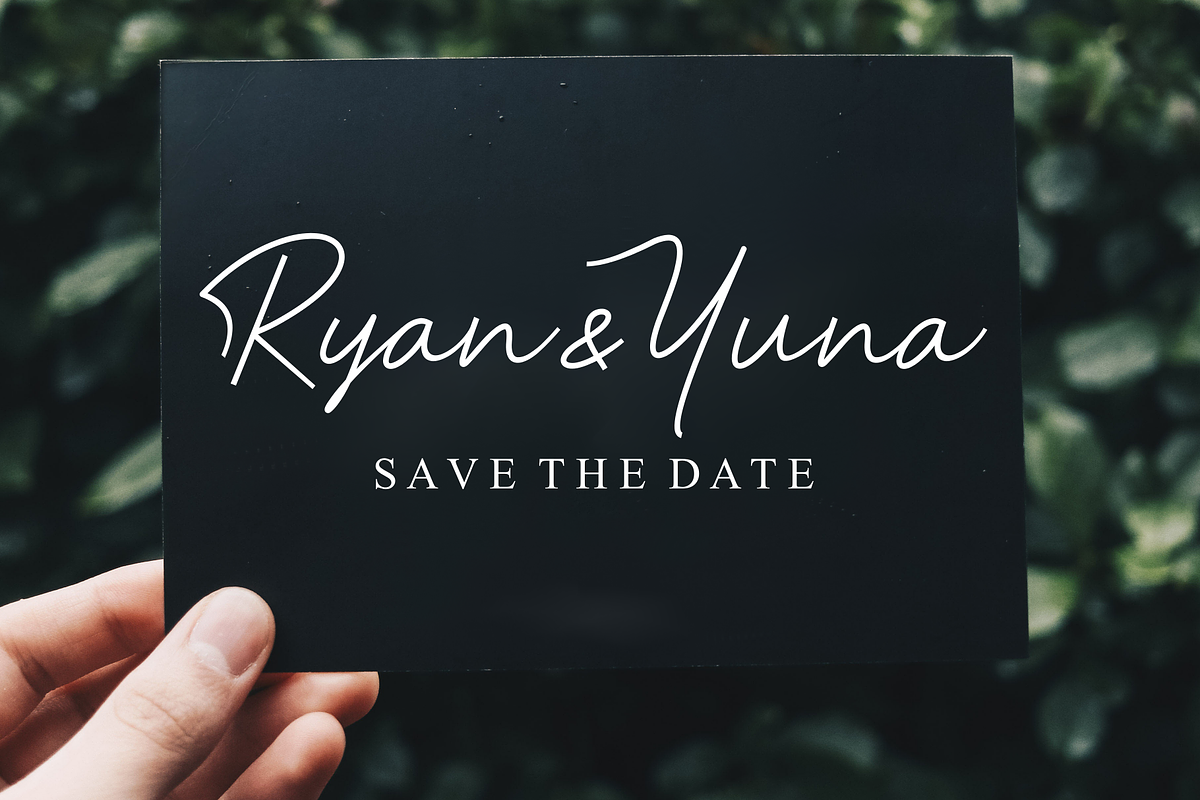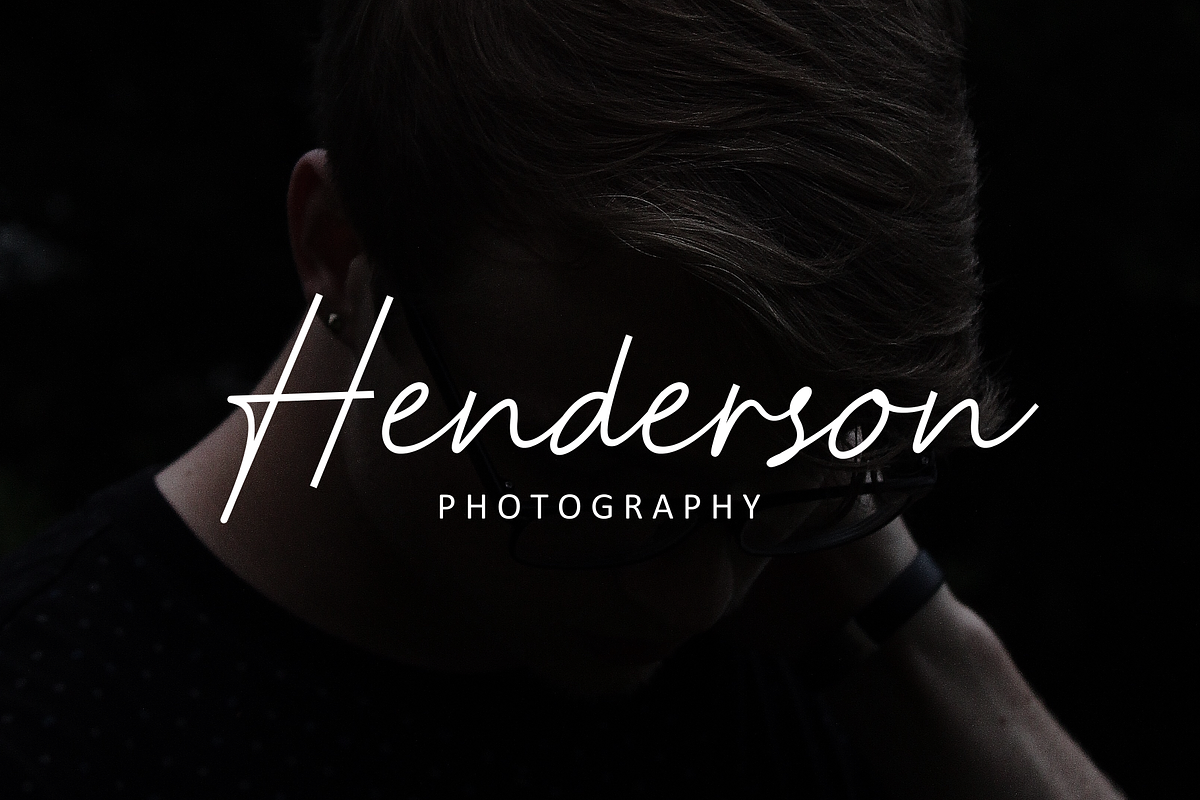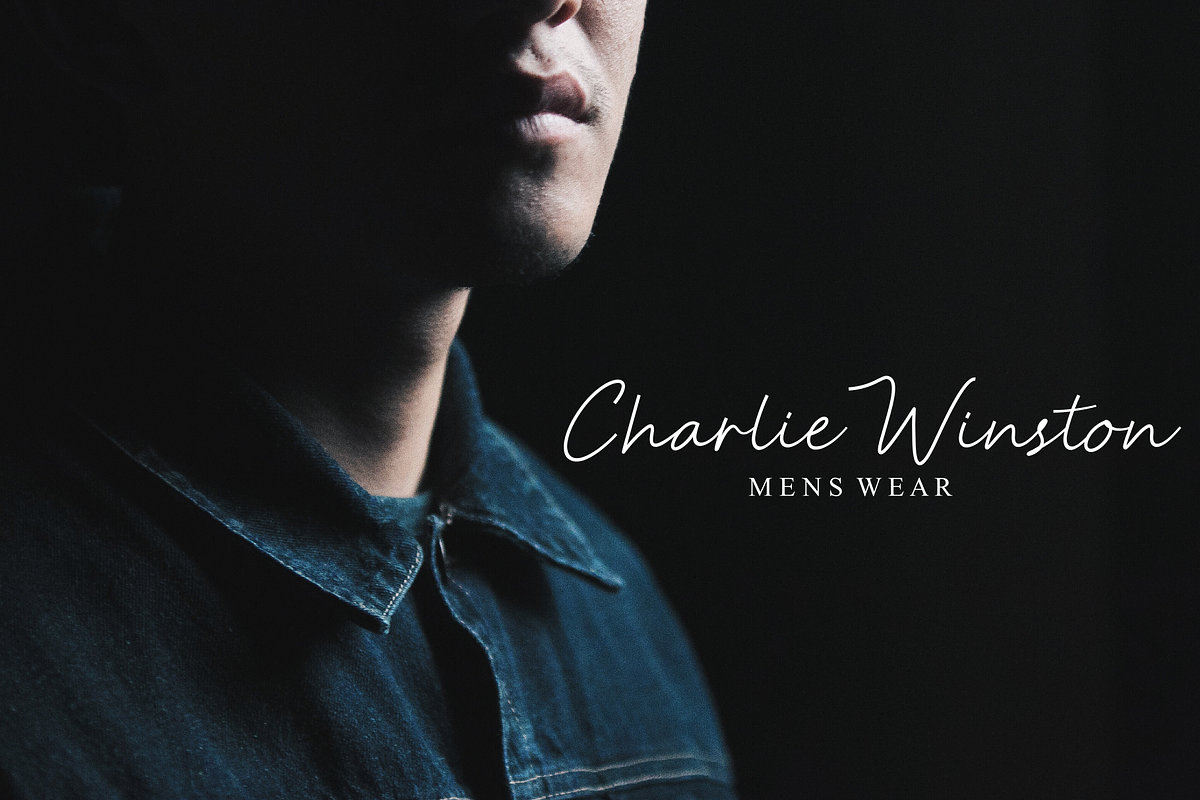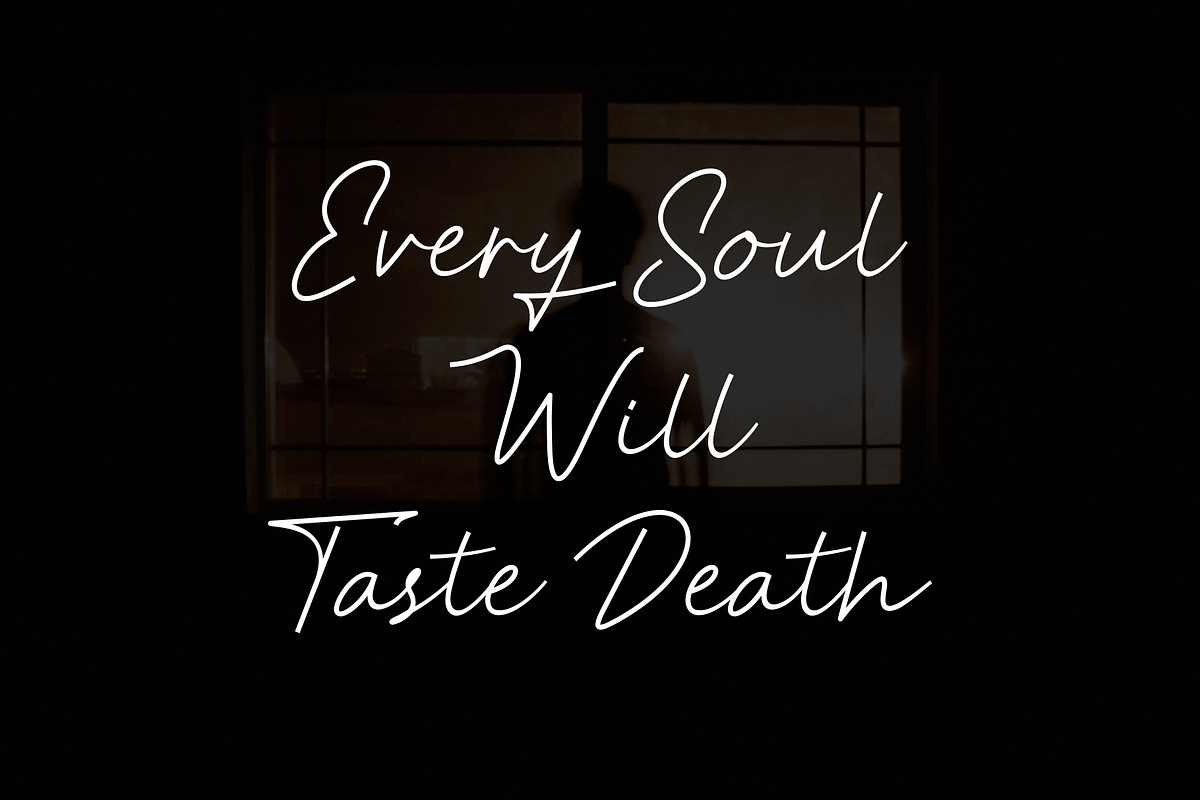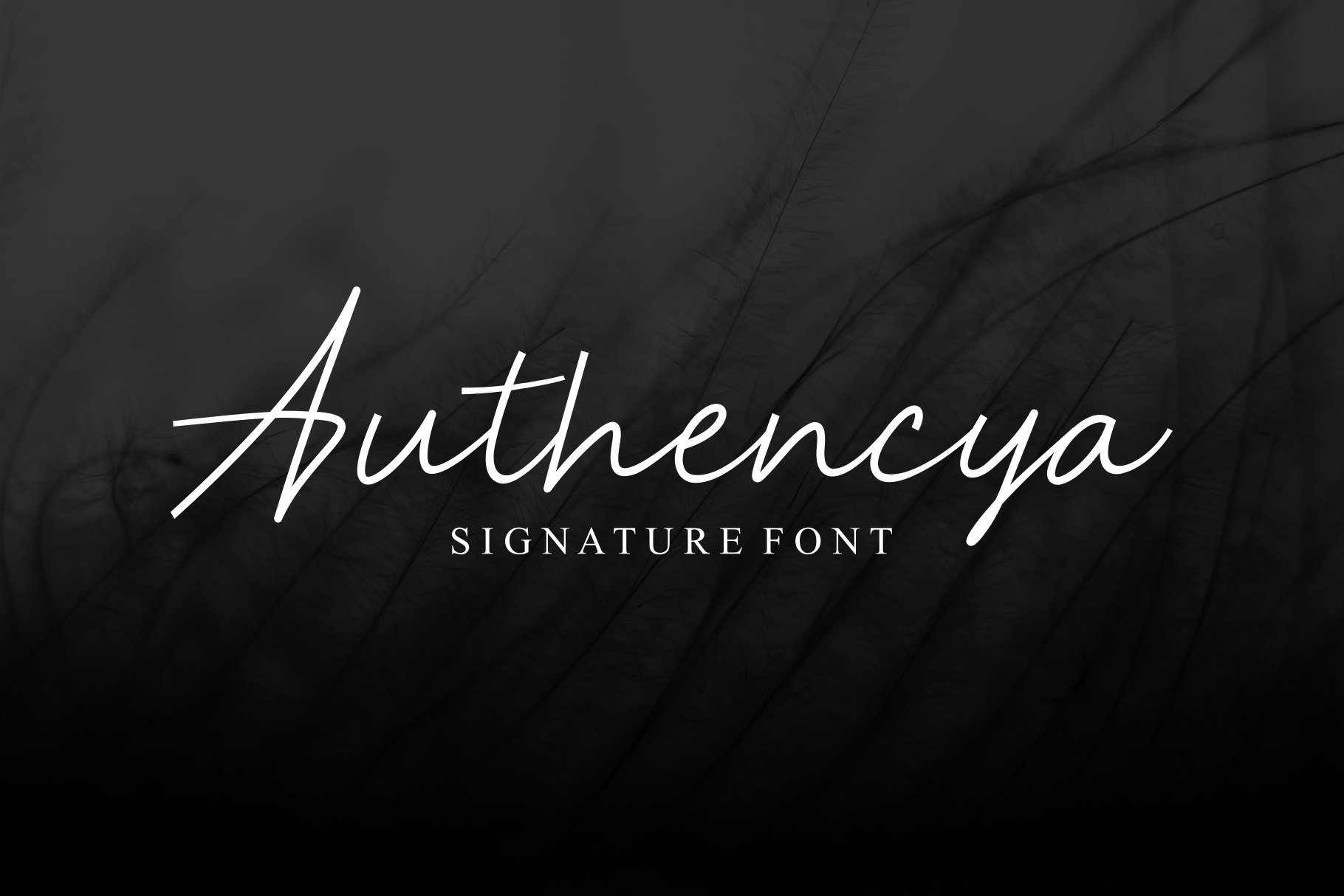
Authencya | Signature Font
Authencya is a simple script typeface which is simple. This font is perfect as a logo, quotes, apparel design, wedding invitation, and many more. You can use the alternate to create your own customized lettering.
you can use alternate font by typing the code : g1x, j1x, y1x
ligature by typing the code : tt
and swash by typing the underscore or double underscore.